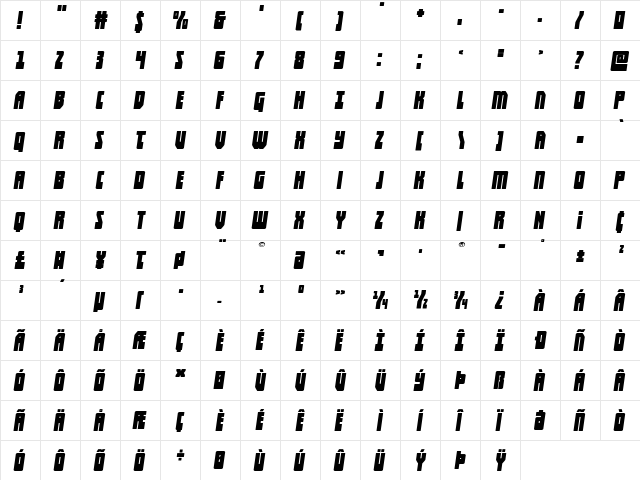
Elastic Lad Wide Italic Regular
Design Context for Elastic Lad Wide Italic Typeface
Elastic Lad Wide Italic is a composed and adaptable typeface that performs quietly and consistently across a wide range of design contexts. The dynamic lean of this cut emphasises speed and emphasis in any layout.
Pro Tip: Try Elastic Lad Wide Italic for annotation and caption copy alongside an upright companion — the contrast in angle creates a dynamic but ordered typographic system.